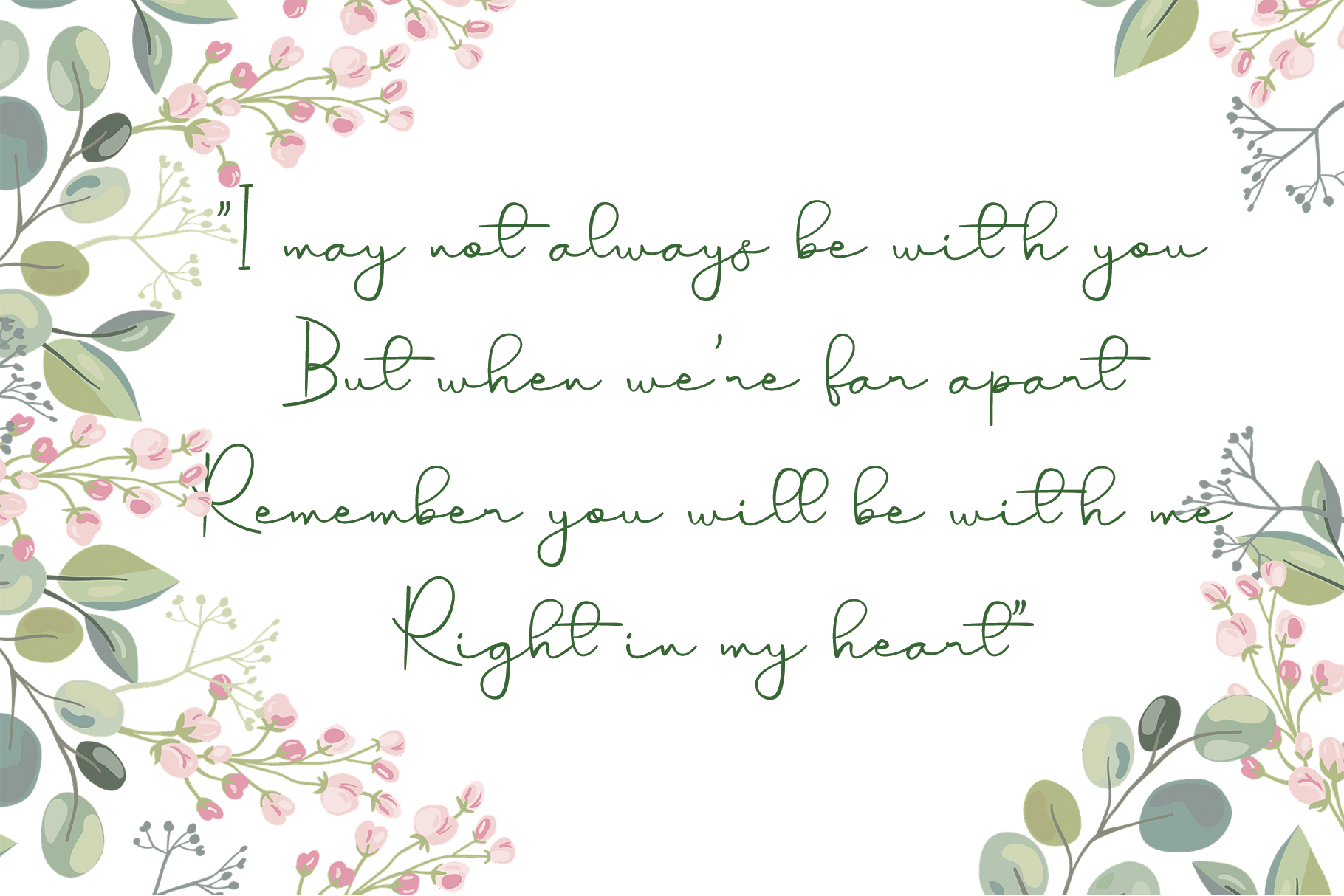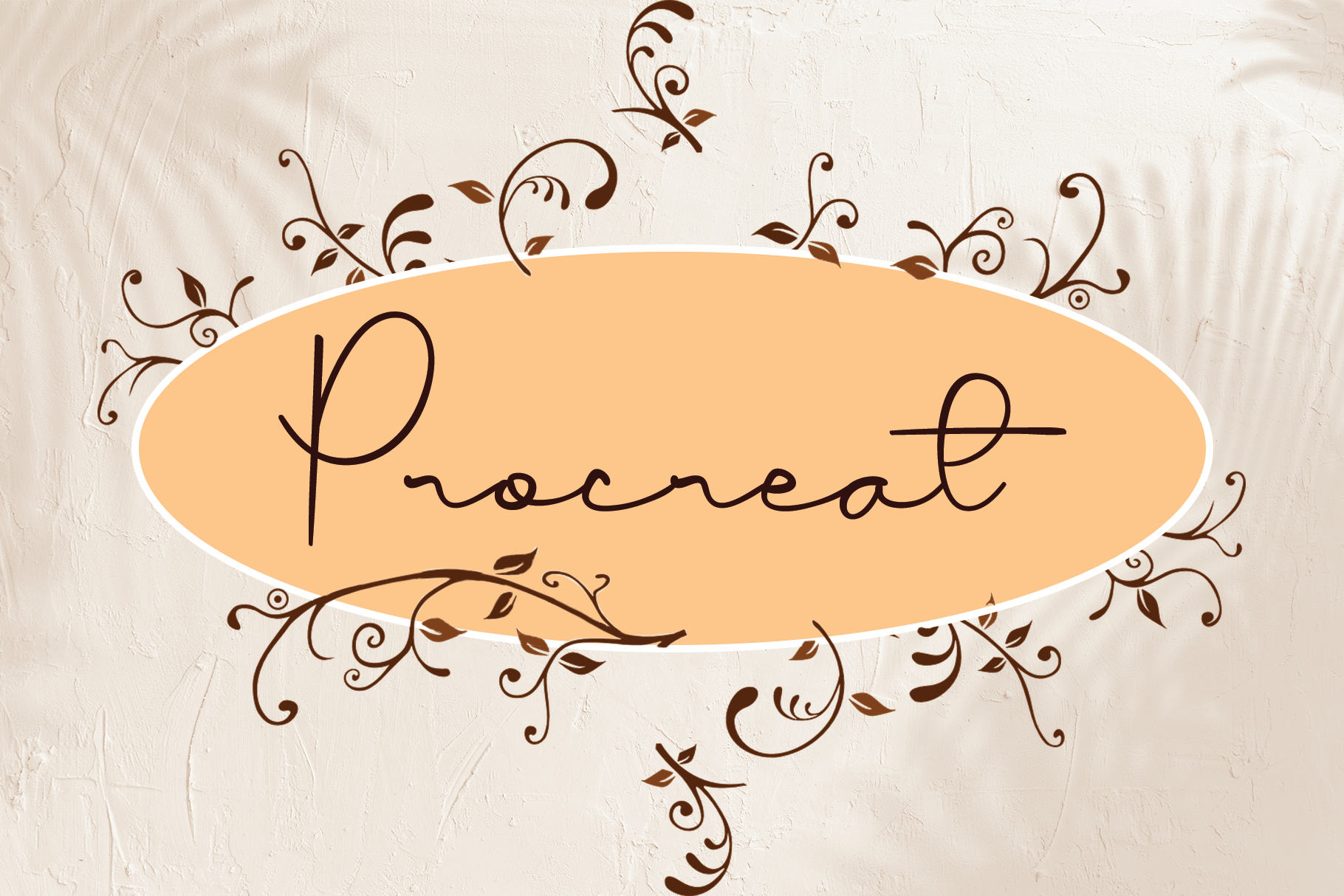
Boyfriend Handwritten Font
This is a chic, refined script font that emanates sophistication and elegance. Its stylish alternates and ligatures make this font the perfect match for any project.